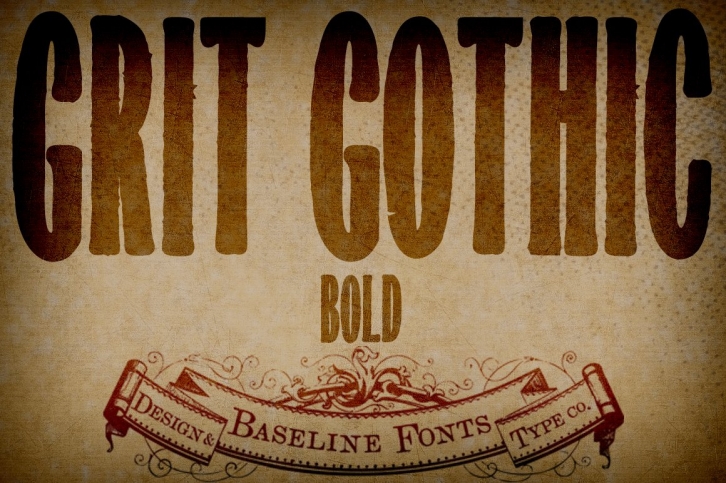
You can hear the wheels of imagination turning within this font-- Grit Gothic, from Grit History B Series, by Baseline Fonts.
Both highly stylized and very legible, the extreme height of this font can give even a goblin vertigo. Extended X heights create lowercases that adventurously reach up through extended shoulders and spines while persistent grunge warns of skinned knees that may result along the climb. It's easy to envision children's rallying cries in Grit Gothic, perfect for book titles, film titles, poster headlines, and any other epic that needs a strong font with a dark edge of mystery and wonder.
This font is rife with personality, including large and daunting punctuation, whittled wood-look vertical bars that berate and argue with beveled bowls, ascenders that attempt to intimidate one another with their height variances, and tittles that bully one another, as they're a variety of context dependent sizes.